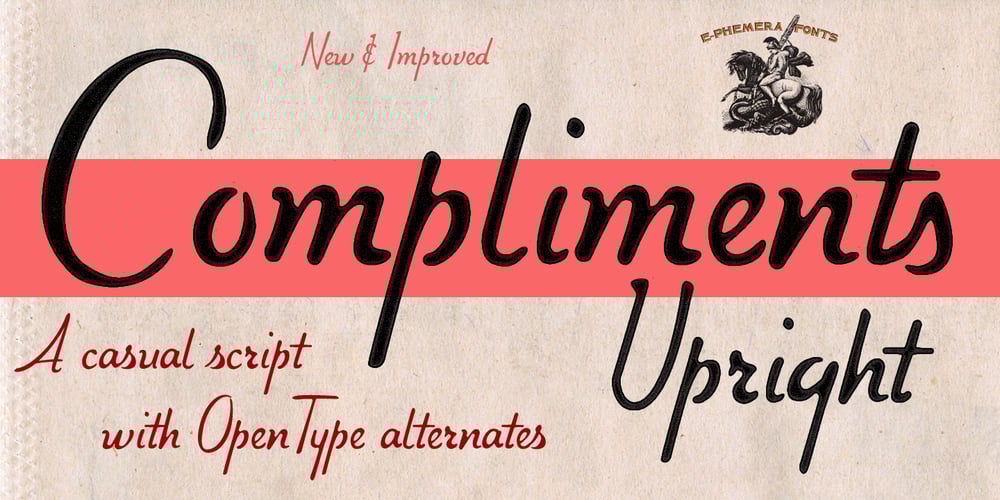
Compliments
Compliments font
Compliments Font Family was designed by Andrew Leman and published by E-phemera. Compliments contains 2 styles and family package options. Compliments was inspired by a few hand-lettered words on a 1930s brochure by Western Union entitled “The Yellow Blank is Correct for Every Social Need.” It is now available in OpenType format with contextual alternates for a better script effect.